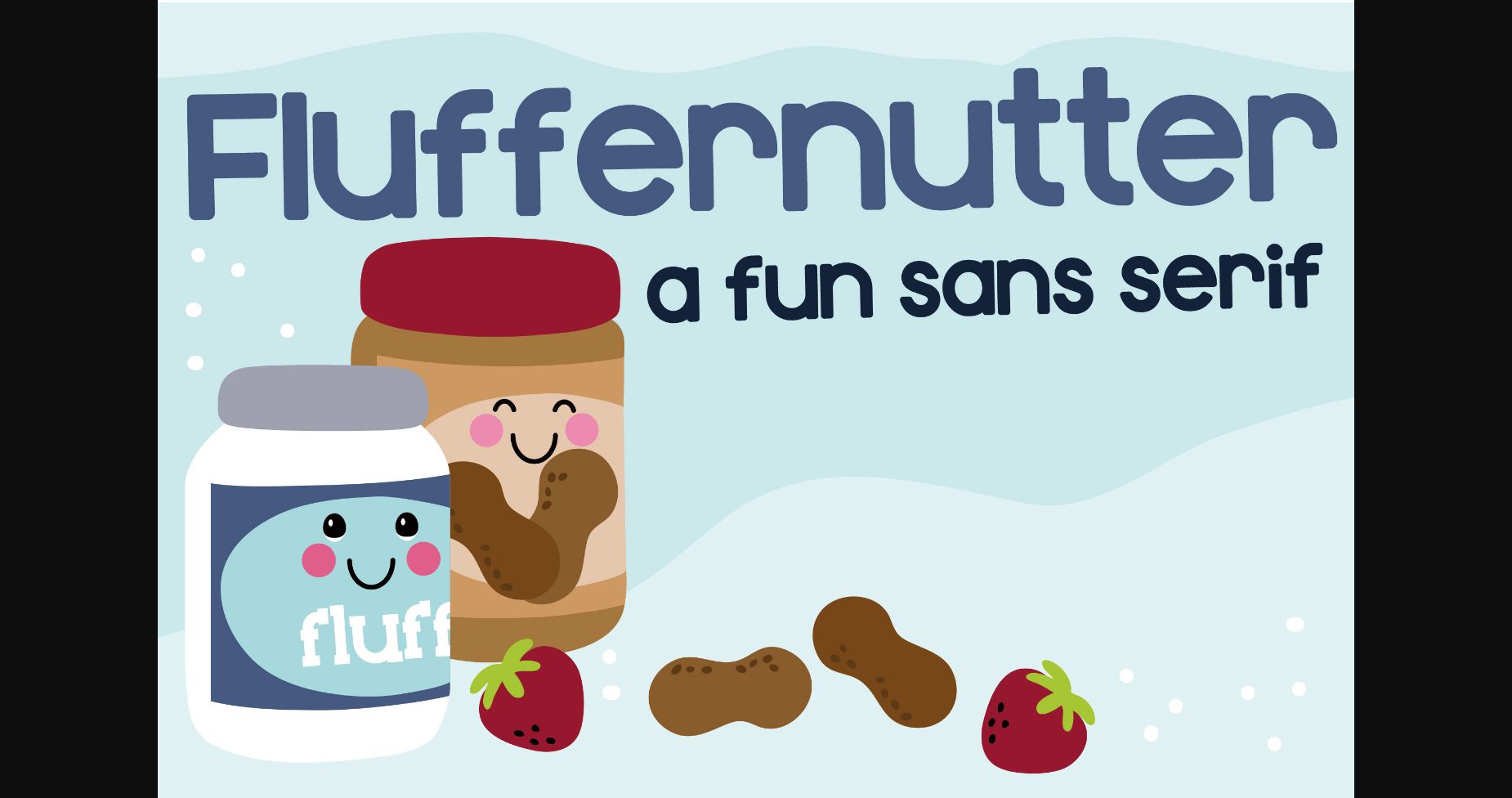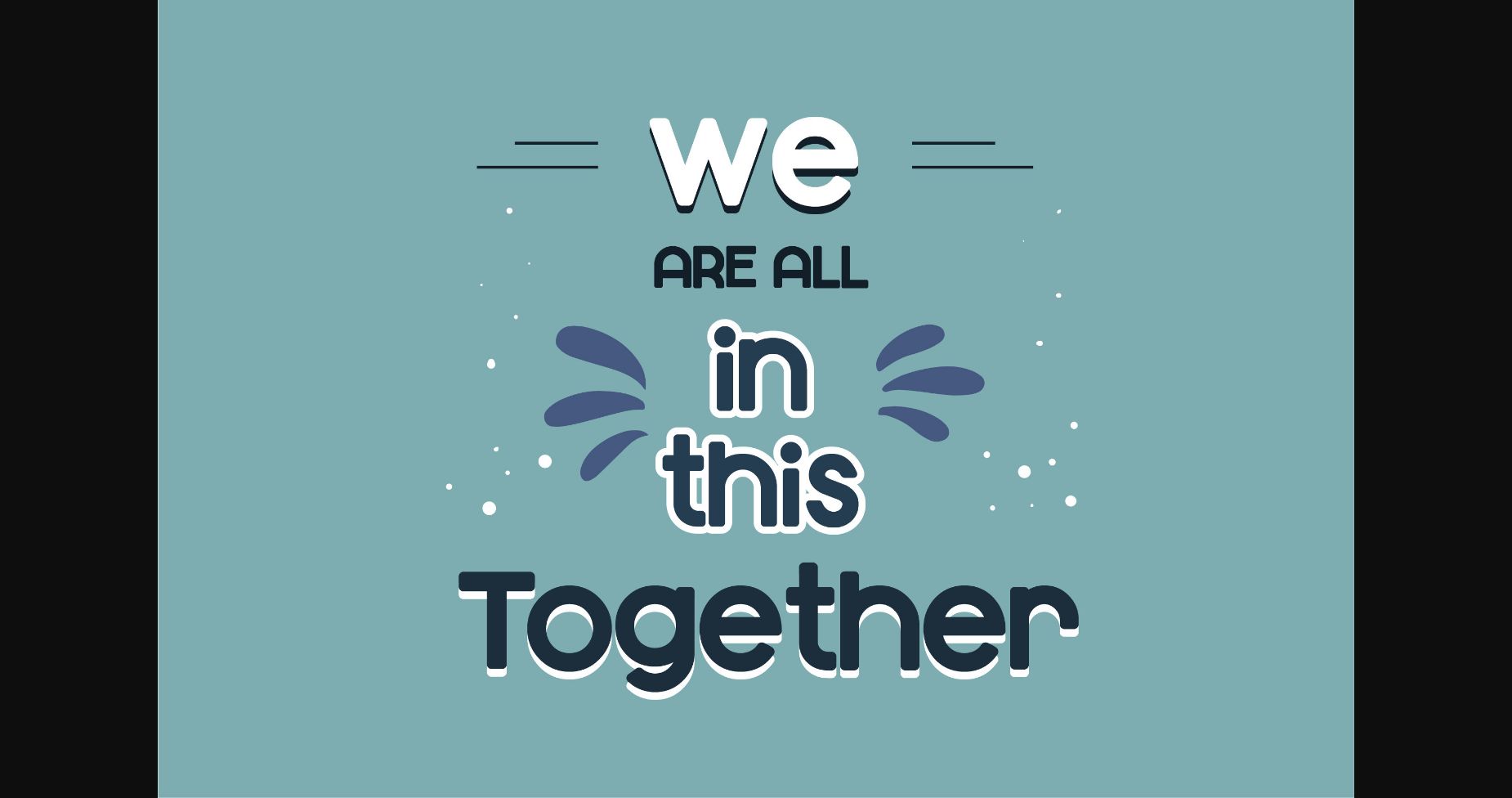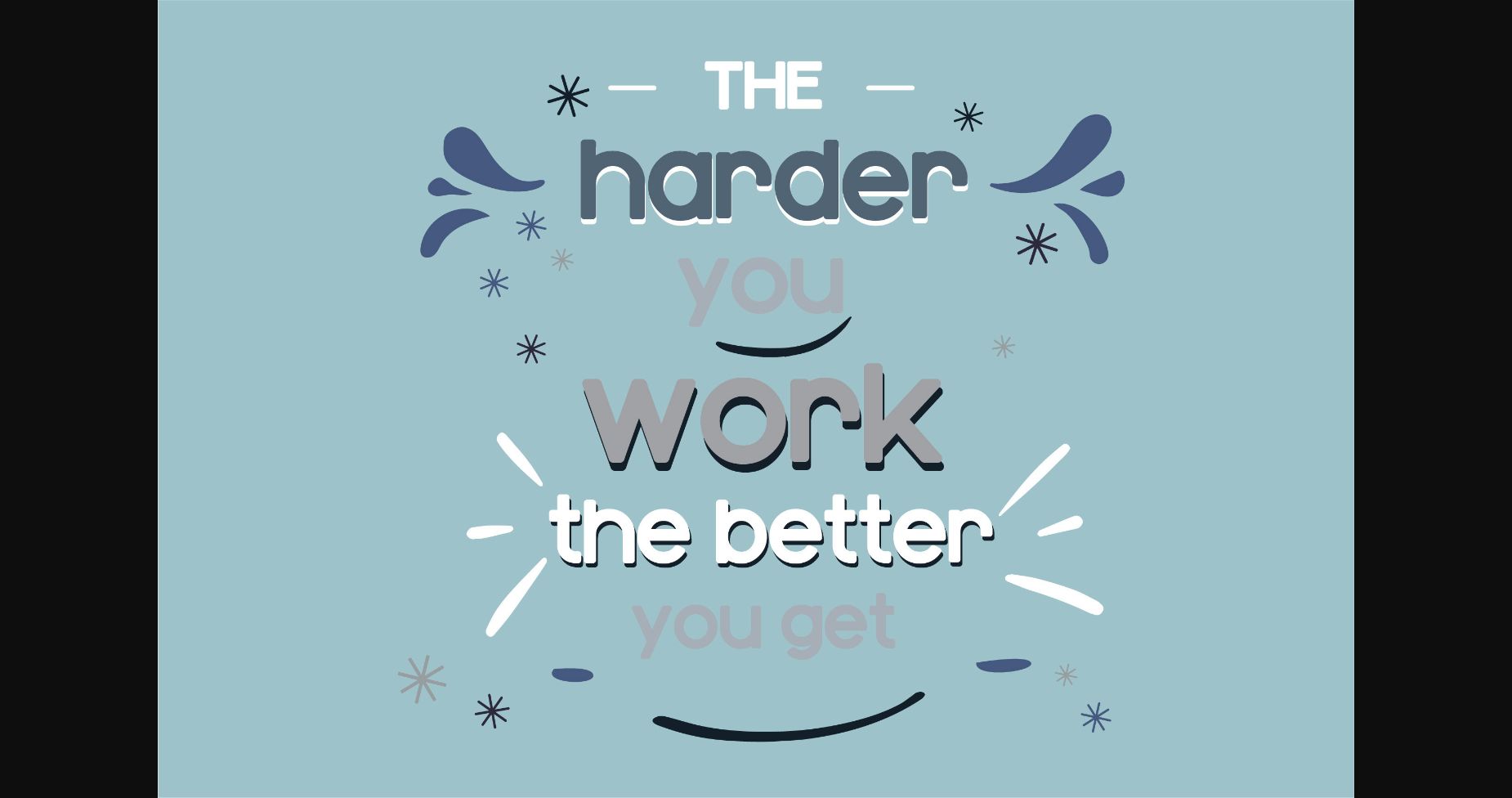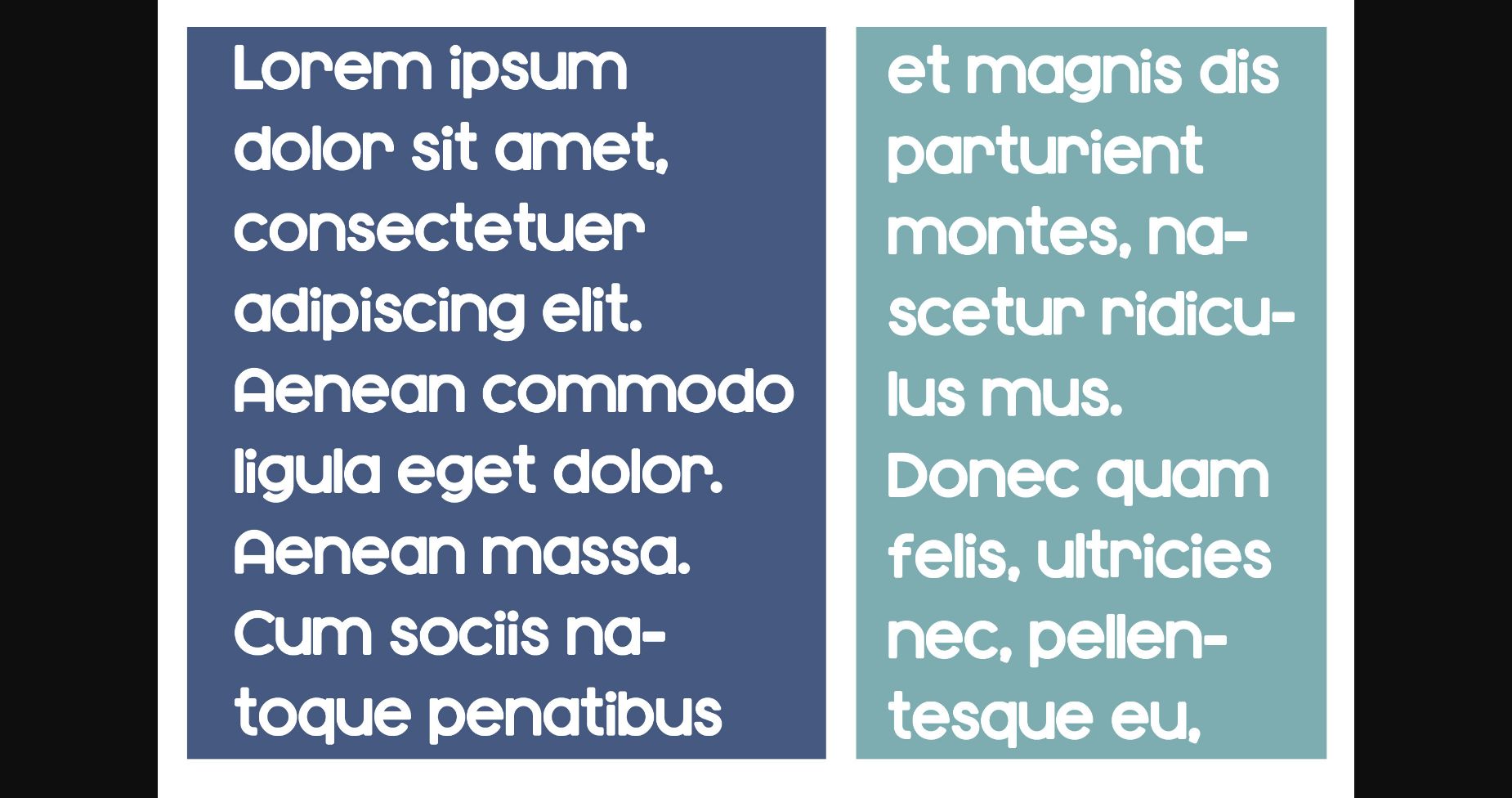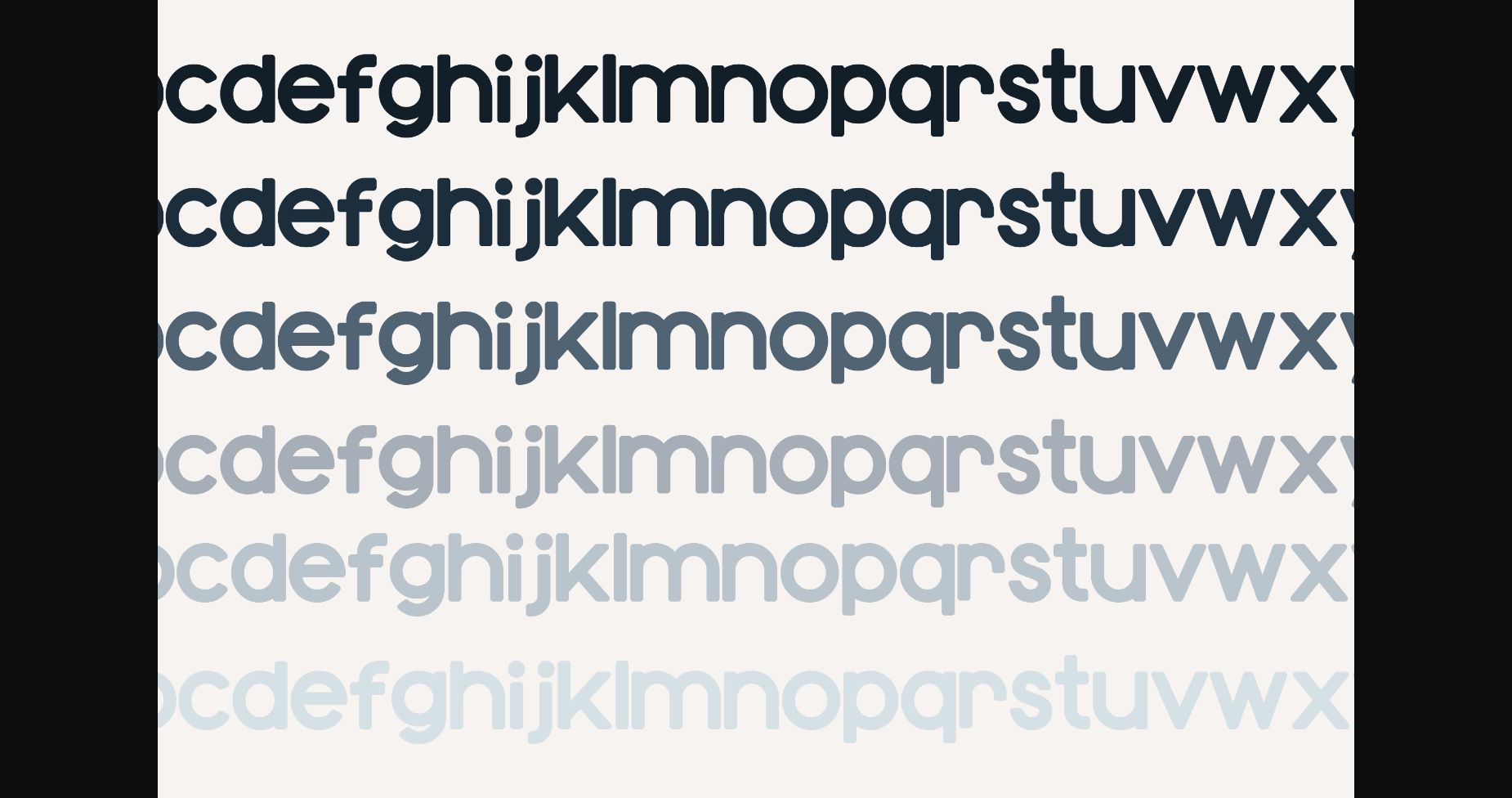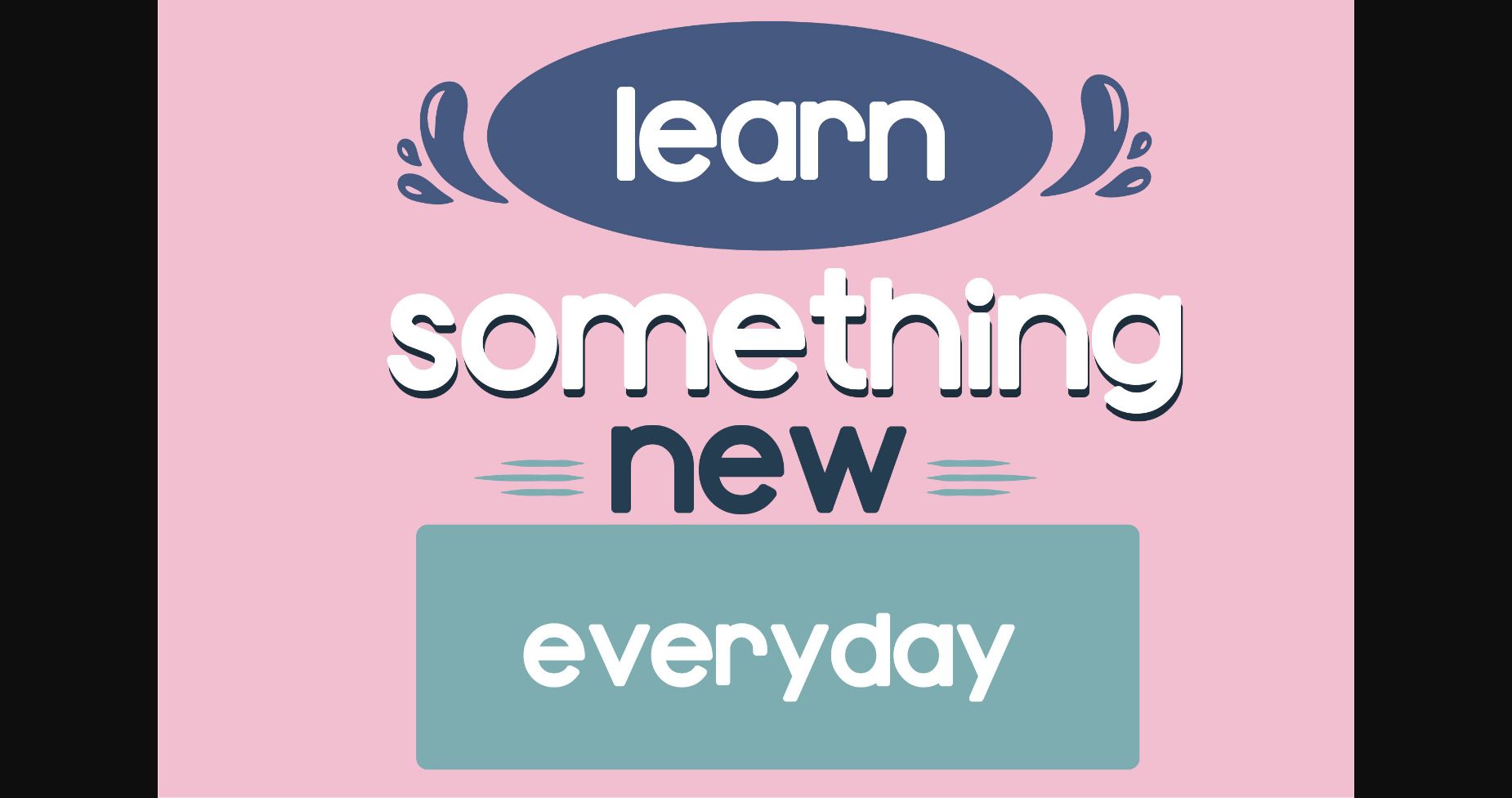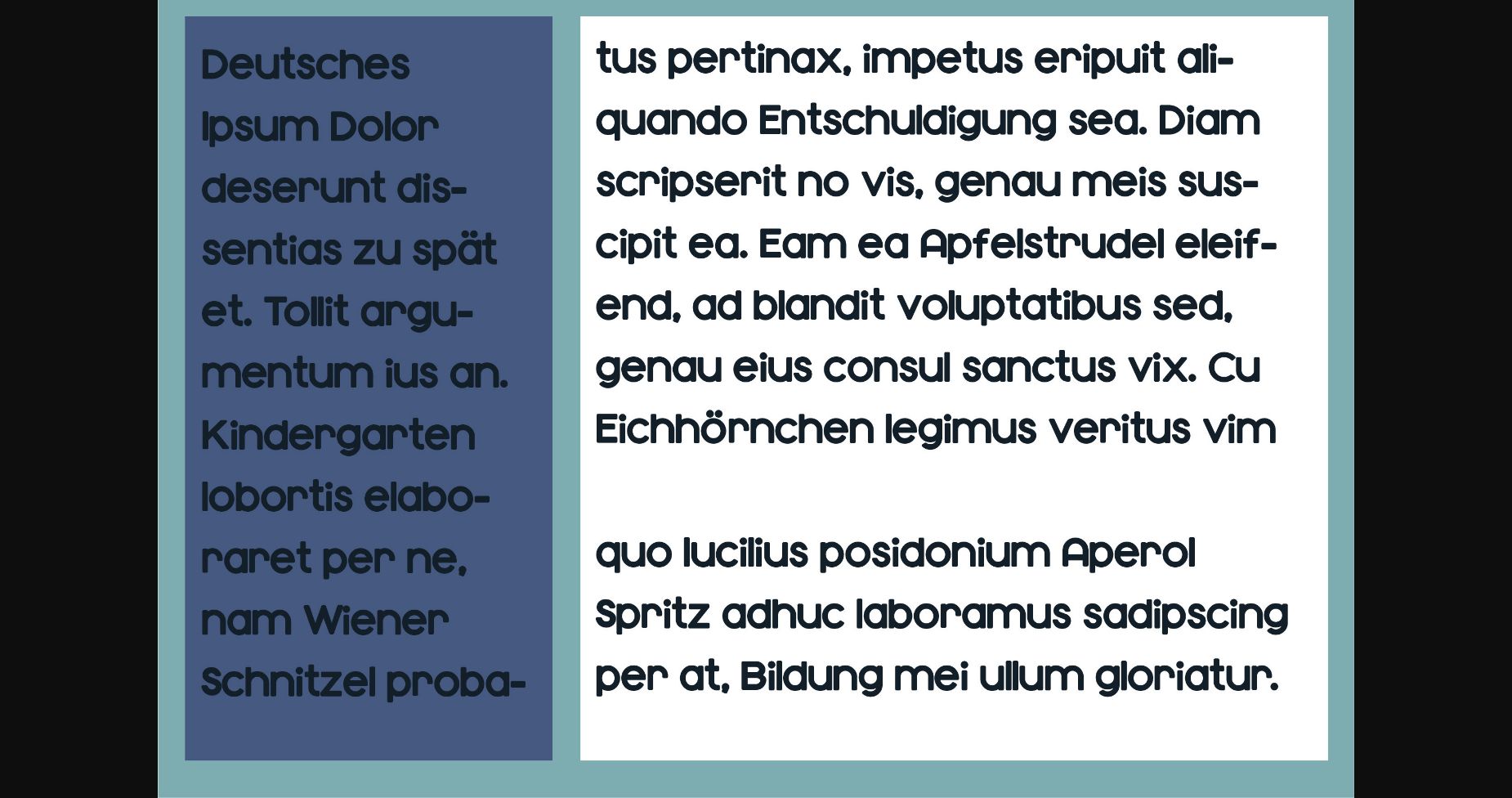
HomeSans Serif FontsFluffernutter Font Sans Serif Fonts Fluffernutter Font FacebookXPinterestWhatsApp 1 of 9 ... Fluffernutter Font Poster 2... Fluffernutter Font Poster 3... Fluffernutter Font Poster 4... Fluffernutter Font Poster 5... Fluffernutter Font Poster 6... Fluffernutter Font Poster 7... Fluffernutter Font Poster 8... Fluffernutter Font Poster 9... About Fluffernutter Font Fluffernutter is a cute and friendly sans serif font. This font was particularly crafted for those who need a beautiful and refreshing look to their designs. DOWNLOAD NOW People also explored Chuglet Font Hangster Font American Font Happiness Machine Duo Font Gelyti Font Easteregg Font Beach Summer Font Rigoletto Script Font Balisstik Font 469 0 TagsFluffernutter Font Previous articleRomance Logic FontNext articleHomeschool Font LEAVE A REPLY Cancel reply Comment: Please enter your comment! Name:* Please enter your name here Email:* You have entered an incorrect email address! Please enter your email address here Website: Save my name, email, and website in this browser for the next time I comment. Personal Use Free Boston Traffic Personal Use Free Read more about this font Budmo Personal Use Free Read more about this font Die Nasty Personal Use Free Read more about this font Spectrashell Personal Use Free Read more about this font BLOG How to Install and Use Fonts on Windows, macOS, and Web Projects How to Install and Use Fonts on Windows, macOS, and Web Projects Fonts are a crucial part of design and branding. Whether you’re designing a... Elegant Wedding Invitation Fonts – Handwritten & Script Fonts 5 Fonts That Will Dominate Design Trends in 2026 Using Fonts in Digital Marketing: Tips to Strengthen Your Brand Identity